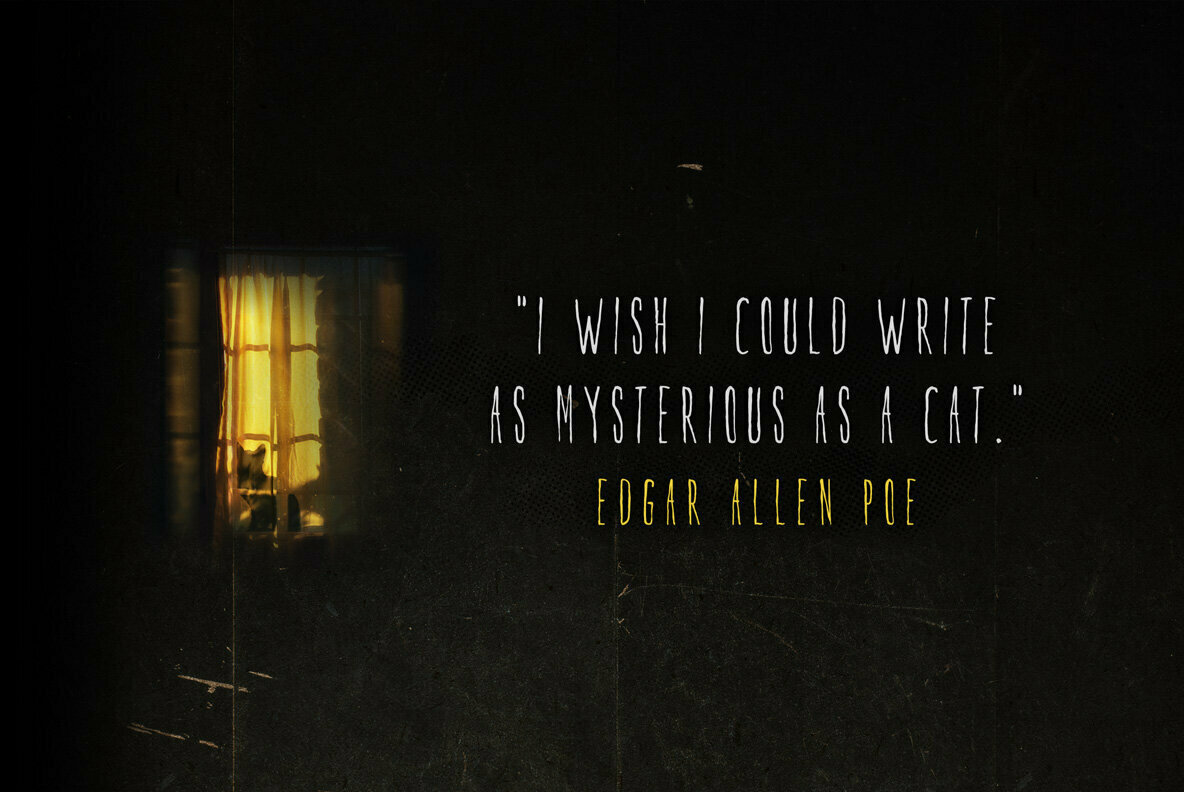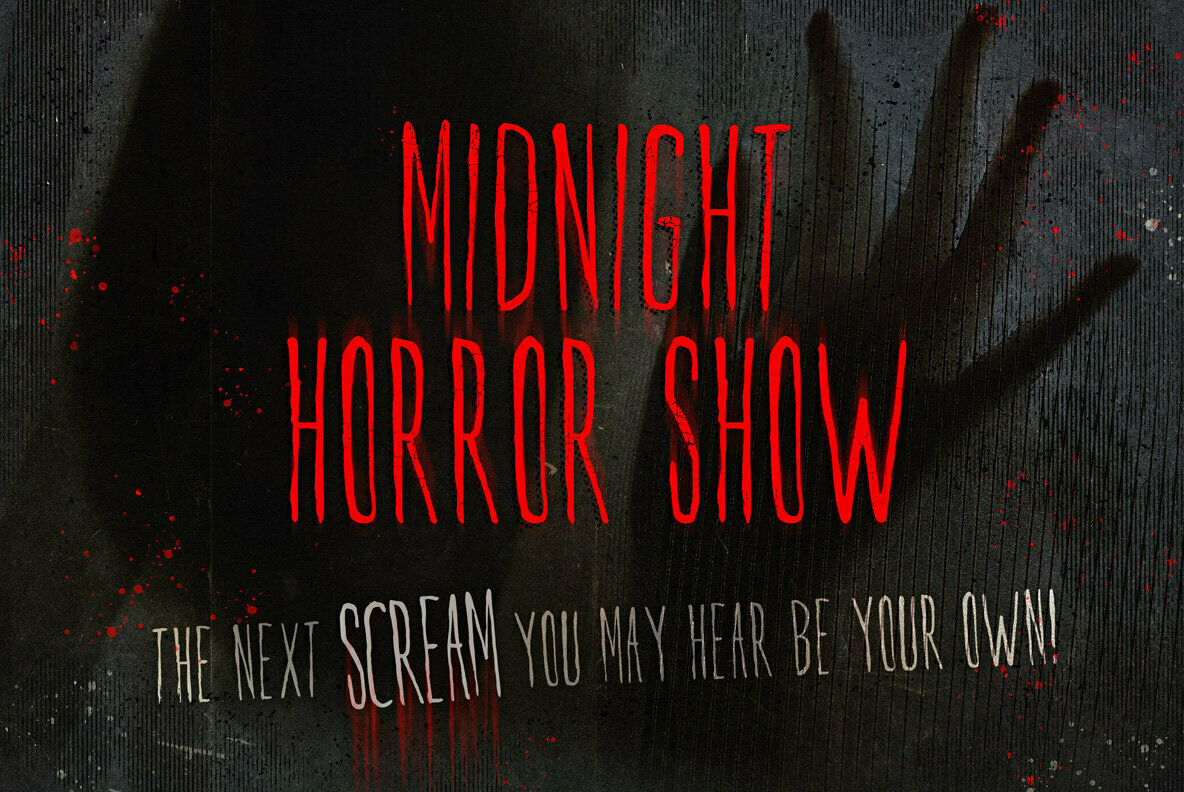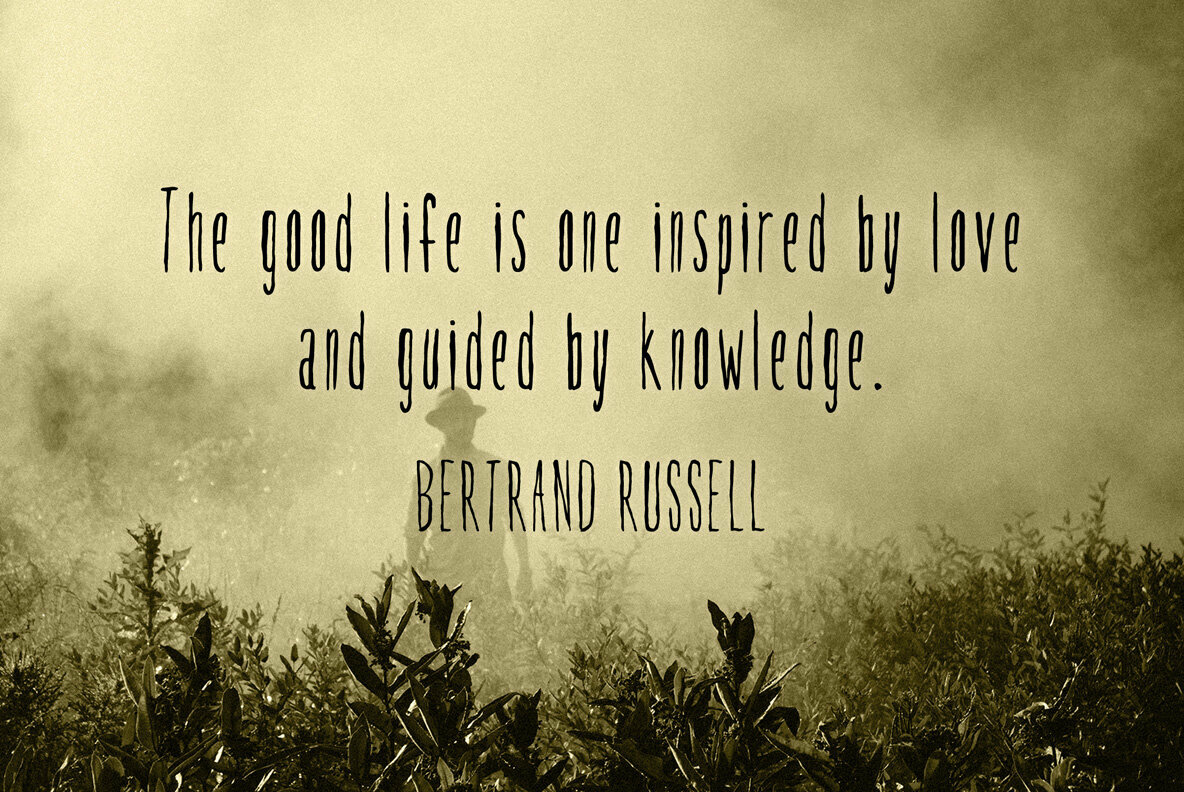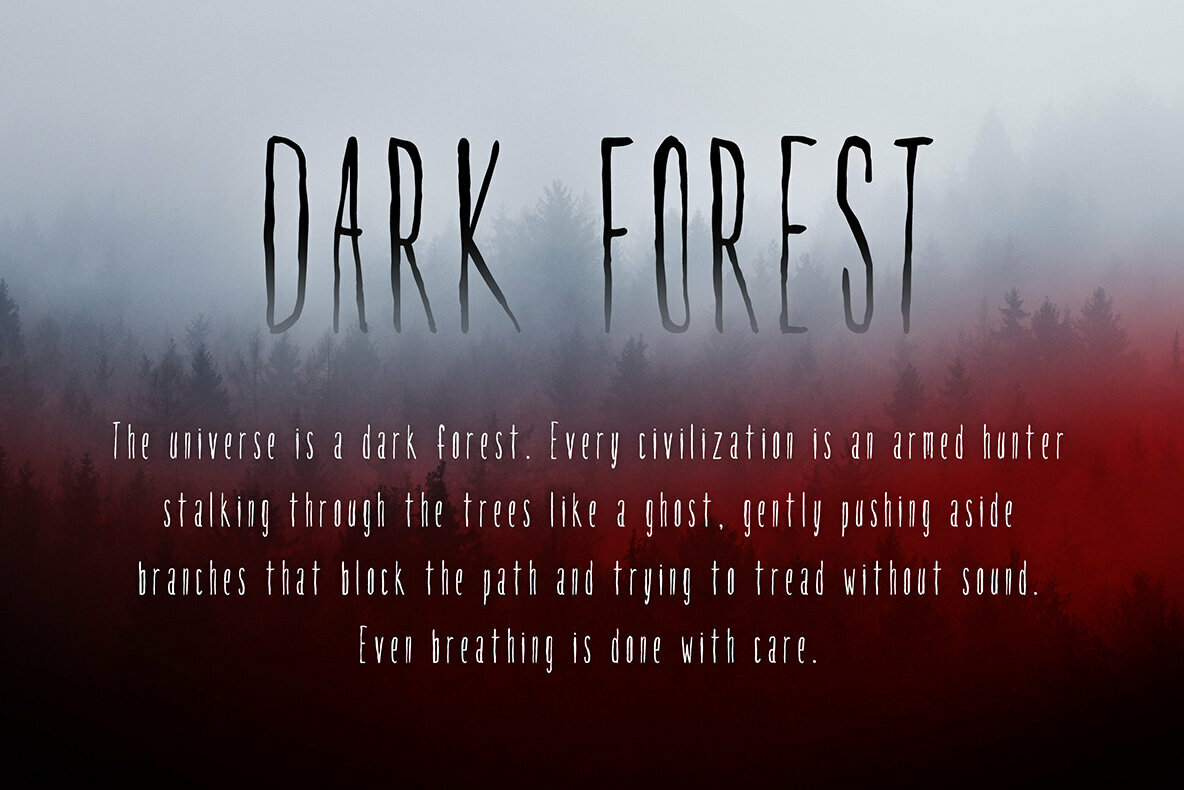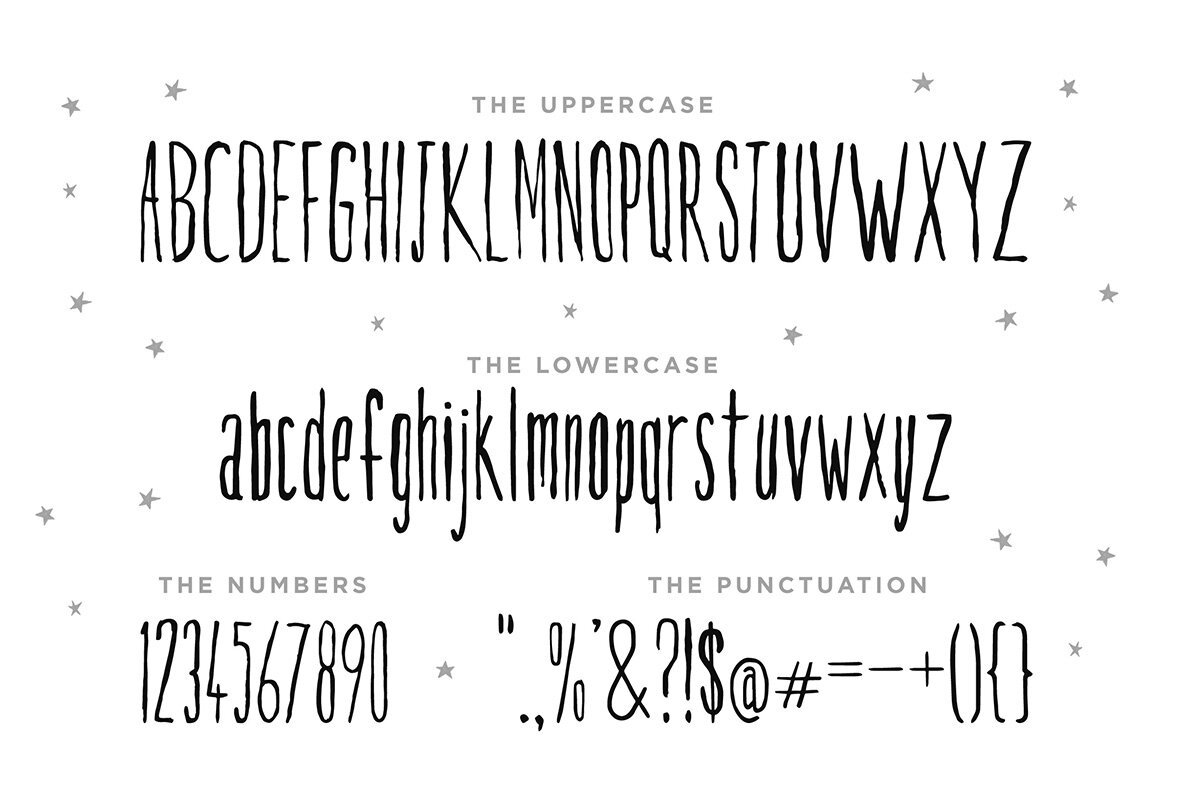
Basement Stairs Font
Basement Stairs
Basement Stairs captures the essence of eerie and mysterious design with every stroke. This hand-drawn font is perfect for projects seeking to evoke a haunting ambiance. From posters and logos to graphic novels and album covers, its versatility and distinct style make it a valuable asset to any designer's toolkit.Basement Stairs: Embrace the Spooky Aesthetic